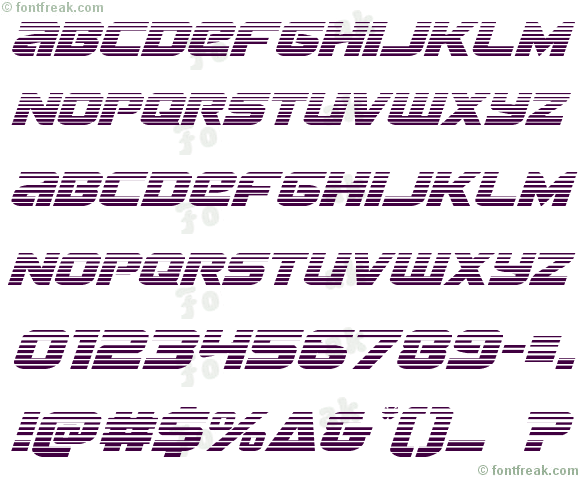
Terran Drop-Case Italic
About Terran Drop-Case Italic
Terran Drop-Case Italic by Daniel Zadorozny is a striking display font that stands out with its semi-condensed, italicized style. This unique typeface, released in 2015, features a modern, bold aesthetic characterized by its robust stroke weight and pronounced contrast. The design incorporates halftone and gradient elements, giving it a dynamic appearance that captures attention. The slanted letters evoke a sense of motion, making this font an excellent choice for projects requiring a contemporary flair.
One of the most notable aspects of the Terran Drop-Case Italic font is its versatility in application. It is particularly well-suited for movie posters, where its strong presence can draw in viewers. Additionally, this font can be effectively used for restaurant menus, providing a modern twist that complements various culinary themes. Graphic designers may find it ideal for branding projects, helping businesses establish a bold identity. Content creators can leverage this font in social media graphics, ensuring their posts stand out in a crowded digital landscape.
In conclusion, the Terran Drop-Case Italic font free download offers a unique blend of style and functionality, making it a standout choice for anyone looking to elevate their design work. Its combination of modern aesthetics and practical usability ensures it remains a valuable asset in any typography toolkit. Whether for commercial branding or personal projects, this font is sure to make a lasting impression.